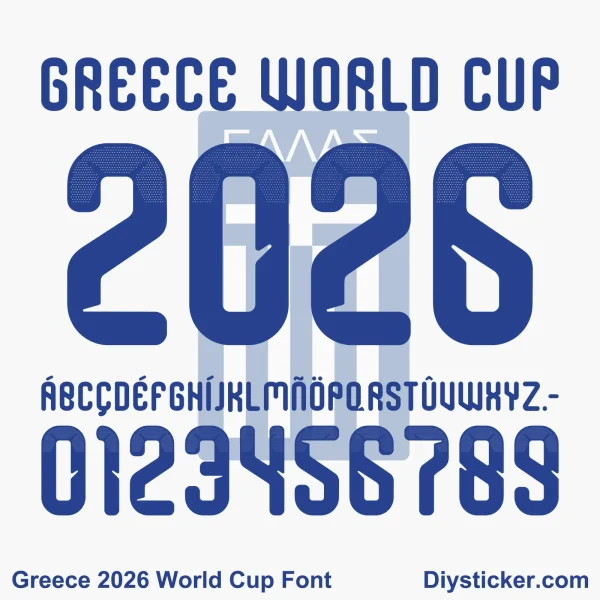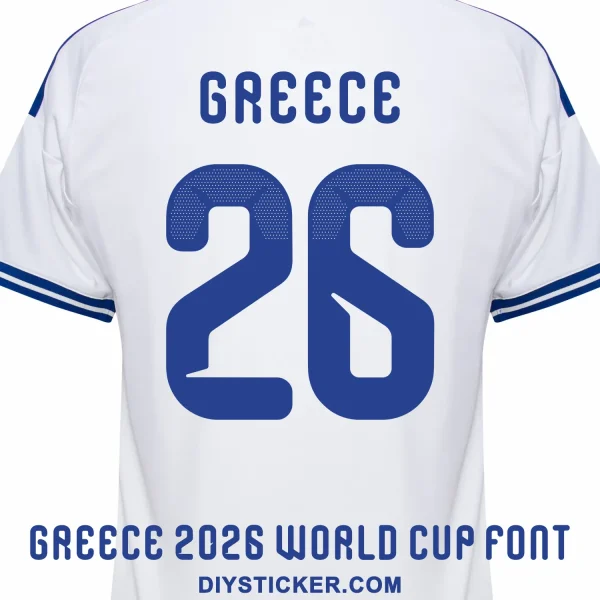
Aesthetic Design Breakdown & Typography Engineering
The Greece 2026 World Cup font features a brilliant typographic concept that fuses classical European form with digital-age texturing. Distinctive visual selling points include:
Intricate Halftone Gradient Dot Pattern: The upper curves and arches of the primary digits feature a meticulously engineered halftone dot matrix gradient. This technical texture dissolves smoothly into the solid body, creating an elite visual depth that prevents the font from looking flat under harsh stadium lights.
Hellenic Calligraphic Geometry: Melding fluid, sweeping curves with sharp inward-pointing notches and angular cuts, the alphabet and numbers subtly honor historical Greek letterforms while retaining a fast, aerodynamic sports profile.
Deep Hellenic Royal Blue Aesthetic: Crafted to deliver maximum visual contrast, popping vibrantly when applied to clean white home kits or standard deep blue national team gear.